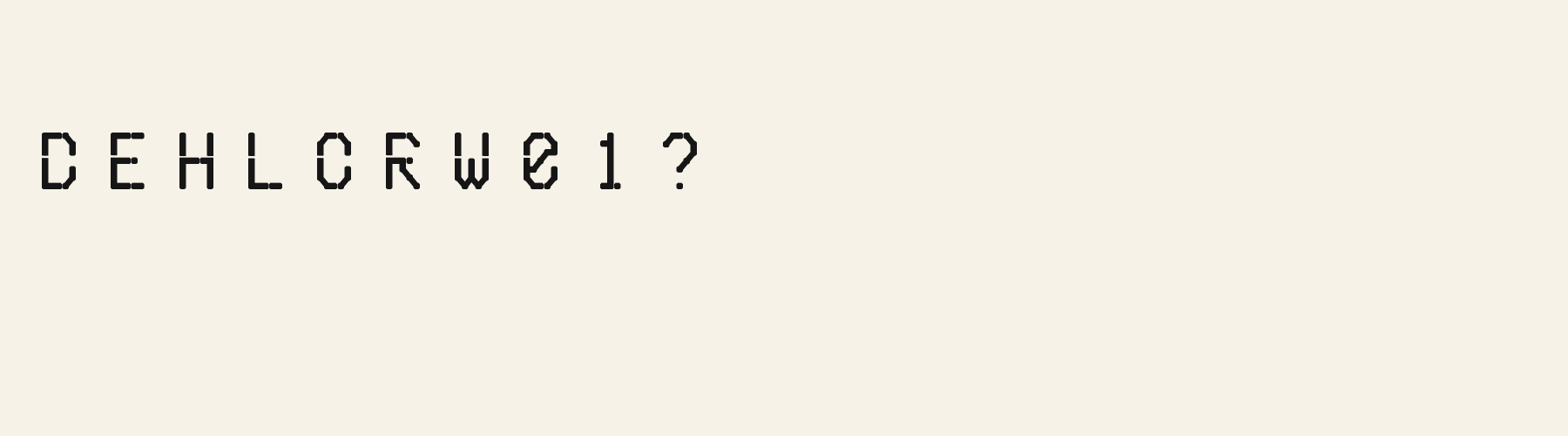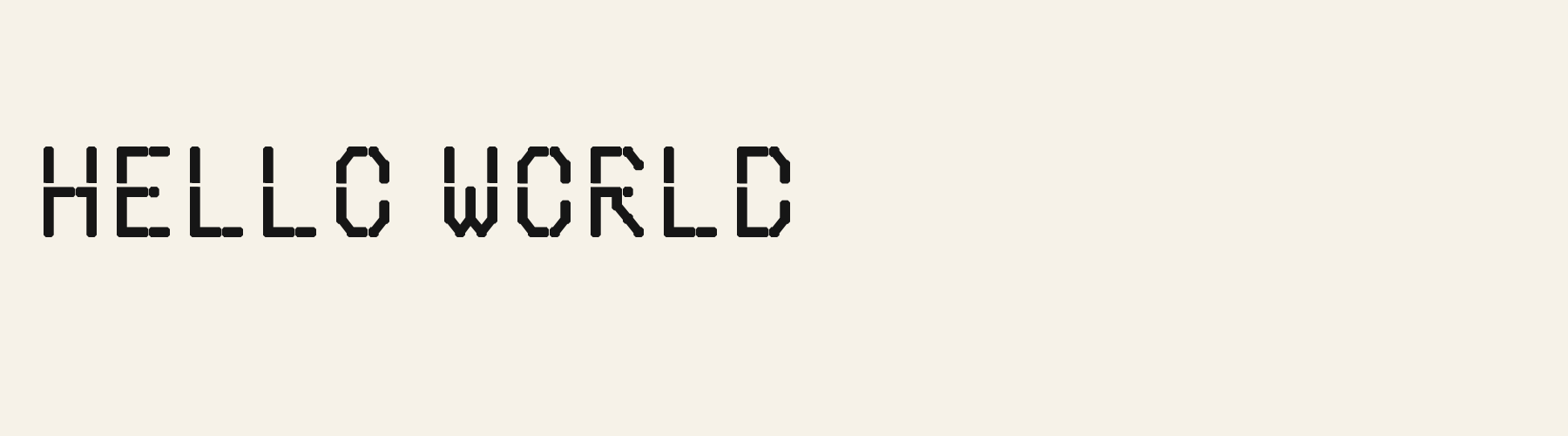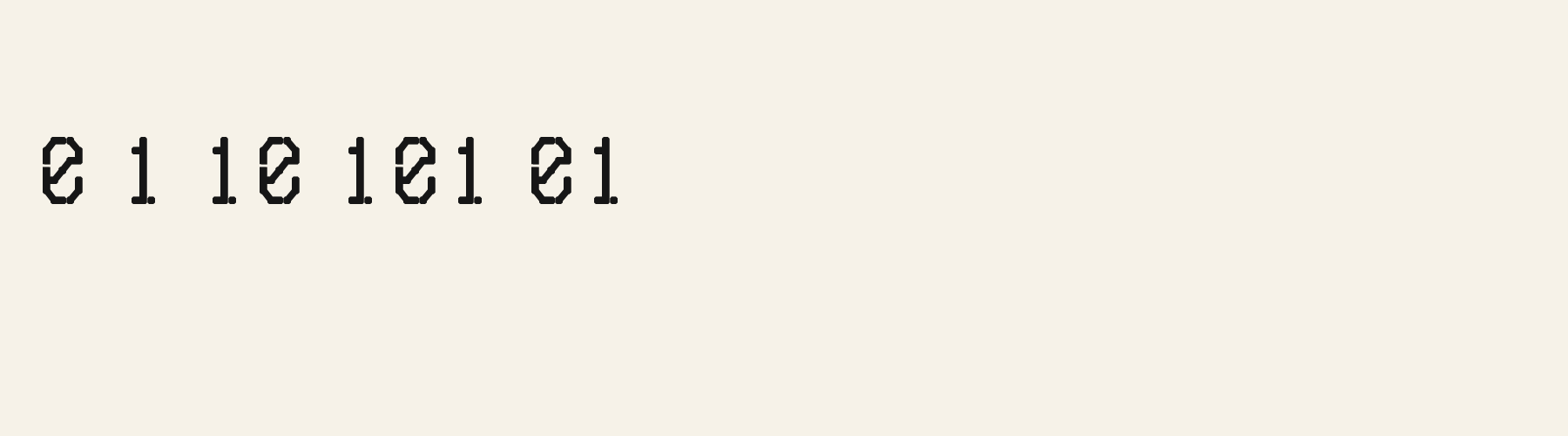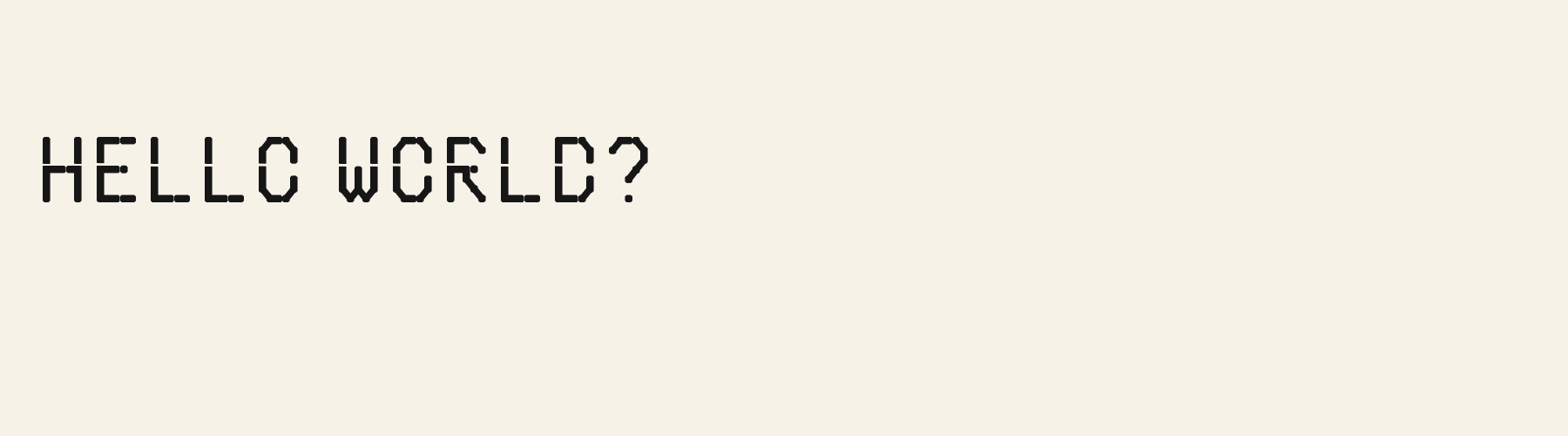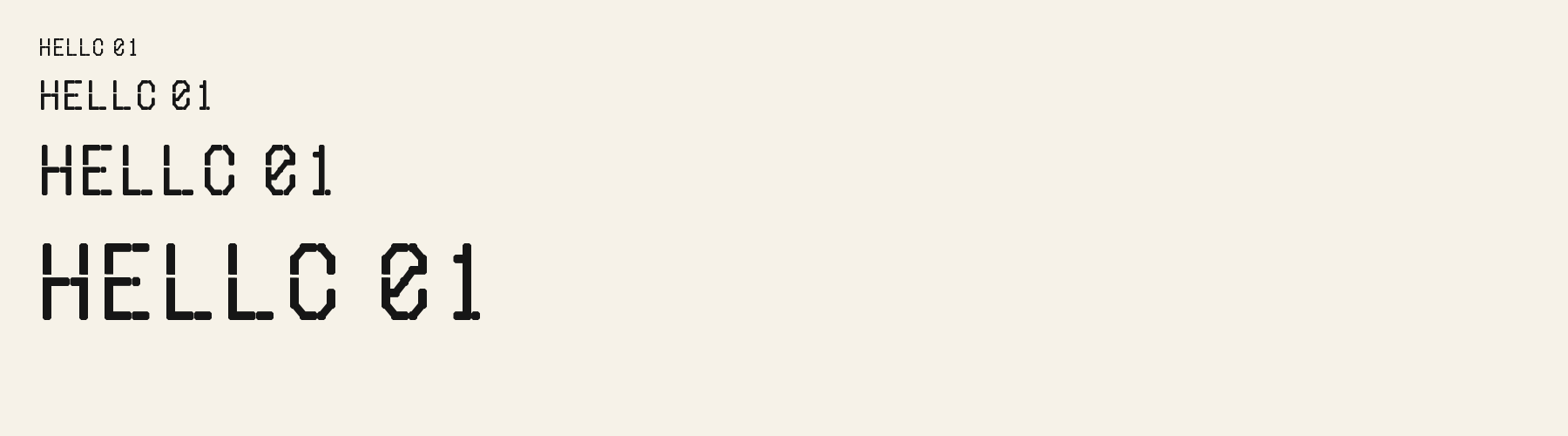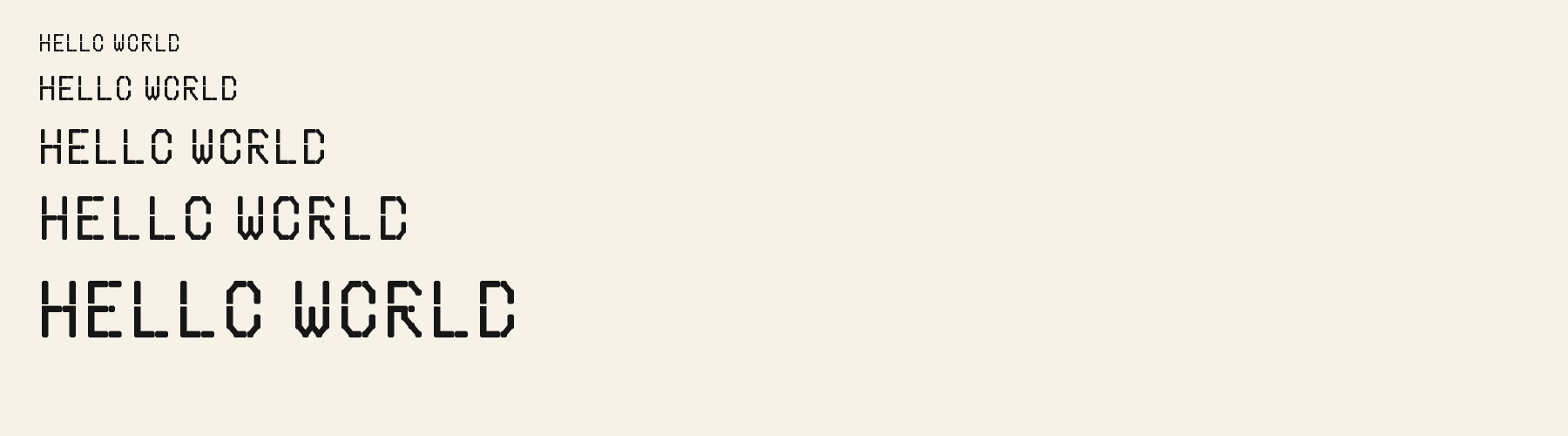
Stencil Cut Corner Octagonal Microgap Industrial Font
Stencil Cut Corner combines tall, narrow-looking capitals with angular bowls and subtly rounded exposed stroke ends.
Octagonal Microgap Industrial Letterforms
Stencil Cut Corner combines tall, narrow-looking capitals with angular bowls and subtly rounded exposed stroke ends. The O has clipped outer corners and a similarly faceted counter, with a tiny opening across its top stroke. The H interrupts its left stem just above the crossbar, while the R pairs an angular bowl with a diagonal leg. These small breaks punctuate otherwise continuous strokes without dominating the silhouettes. The strokes stay visually even through verticals, horizontals and diagonals, creating a spare equipment-label mood. Generous interior spaces give the lettering a relatively light appearance despite its rigid construction.
Preview your actual Latin wording, checking the tiny breaks in H and R, the top opening of O, and punctuation spacing. Inspect lowercase and accented letters separately, since these specimens show capitals. For other scripts, verify character availability and appearance in the intended fallback.
Try this face for short headings or equipment-style labels, with a conventional sans serif for descriptions. Its faceted bowls and interrupted stems provide the display detail; a companion with continuous strokes and more varied proportions can give supporting text a quieter texture.
Stencil Cut Corner: letterforms and layout
Compare the original spacing with a wider setting. Watch how the repeated L shapes and angular O outlines change the rhythm, while keeping the word space distinct from the gaps between letters.
In this uppercase sample, Stencil Cut Corner has gently rounded exposed ends, especially on E and L. The phrase also extends slightly farther across the specimen, giving the angular outlines a more spread-out rhythm.
Stencil Cut Corner font in use
Product label. Angular bowls and narrow stem breaks bring an equipment-label character to short product wording; check the actual name in preview. NIGHT SHIFT
Poster. Tall capitals and interrupted stems give a short poster title a mechanical rhythm, with room around the lettering. AFTER HOURS
Book or album cover. Faceted outlines and softened stroke ends suit an industrial album cover with a restrained title and sparse supporting text.
About Stencil Cut Corner
Its lowercase sits low: the x-height is 70.4% of the cap height, where the median for stencil fonts is 74.2%, lower than 13 of the 14 other stencil fonts. Ascenders on b, d, h, k and l line up with the capitals (100% of their height), and descenders on g, j, p, q and y drop 29.6% of the cap height below the baseline, deeper than 13 of the 14 other stencil fonts. Its letters are of average width for stencil fonts: an average lowercase letter, spacing included, is 81.2% as wide as the capitals are tall (an average capital, 81.2%), within 1.2% of the median. The o is an upright oval, 0.84 times as wide as it is tall, and every capital has the same width. O stands exactly as tall as H and sits on the baseline, with no overshoot.
The letters stand upright, leaning less than 2.5° either way. Vertical stems measure 11.3% of the cap height, lighter than 13 of the 14 other stencil fonts. Ink covers 25.3% of each lowercase letter's box (its advance width by the cap height), lighter than 13 of the 14 other stencil fonts. Strokes keep one thickness in every direction: the sides of o and O measure the same as their tops and bottoms.
Its 159 characters include 116 Latin letters, plus 43 figures, punctuation marks and symbols; 64 of the Latin letters are accented or special forms beyond A to Z. The word space measures 39% of the cap height, and the blank space either side of a lowercase letter takes up 31.4% of its width. The font carries no kerning, so spacing comes from each letter’s own side bearings. All ten figures share one width, so columns of numbers line up.
Measured from the version 0.3.1 font file. Comparisons are with the 376 published library fonts measured on November 8, 2026, 15 of them stencil fonts.
Includes all 95 printable Basic Latin characters, 159 characters in total.
- What fonts pair well with Stencil Cut Corner?
- Notch Terminal Sans (sans serif), Zigzag Spine Sans (sans serif) and Station Slab (serif) are drawn on a different letter structure, so Stencil Cut Corner can carry the headings while one of them sets the text. Each has its own page with a type tester for trying the pair.